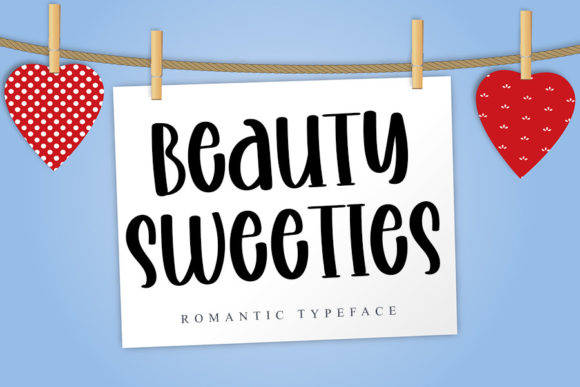
Dive into the enchanting realm of Beauty Sweeties, a font family emanating sheer delight and captivating charm. This exceptional display font carries the unique essence of joy and wonder, adding a touch of whimsy to any design it adorns. With its playful spirit and enchanting aesthetics, Beauty Sweeties promises to transform your creative visions into extraordinary realities.
Unleash the Endless Possibilities
The Beauty Sweeties font family captivates with its remarkable versatility. Its wide range of applications makes it the perfect choice for a multitude of projects, from captivating logos that exude personality to exquisite wedding invitations that evoke a sense of timeless romance. Let your creativity soar as you craft eye-catching headings that demand attention or design T-shirts that radiate uniqueness and style. The possibilities are boundless with this magical font family.
A Symphony of Delight in Every Detail
With its delightfully curved lines and delicately crafted characters, Beauty Sweeties dances across the page like a melody of visual enchantment. Each letterform is a work of art, meticulously designed to evoke a sense of happiness and cheer. Experience the joy of creating designs that sparkle with personality, designs that invite your audience to immerse themselves in a world of visual splendor.
Awaken Your Imagination and Captivate Your Audience
Step into a world where Beauty Sweeties reigns supreme, where your designs come alive with a vibrant energy that captivates your audience. This font family is not merely a collection of letters; it's a gateway to a realm of creativity where anything is possible. Let Beauty Sweeties ignite your imagination and inspire you to create designs that leave an unforgettable impression.